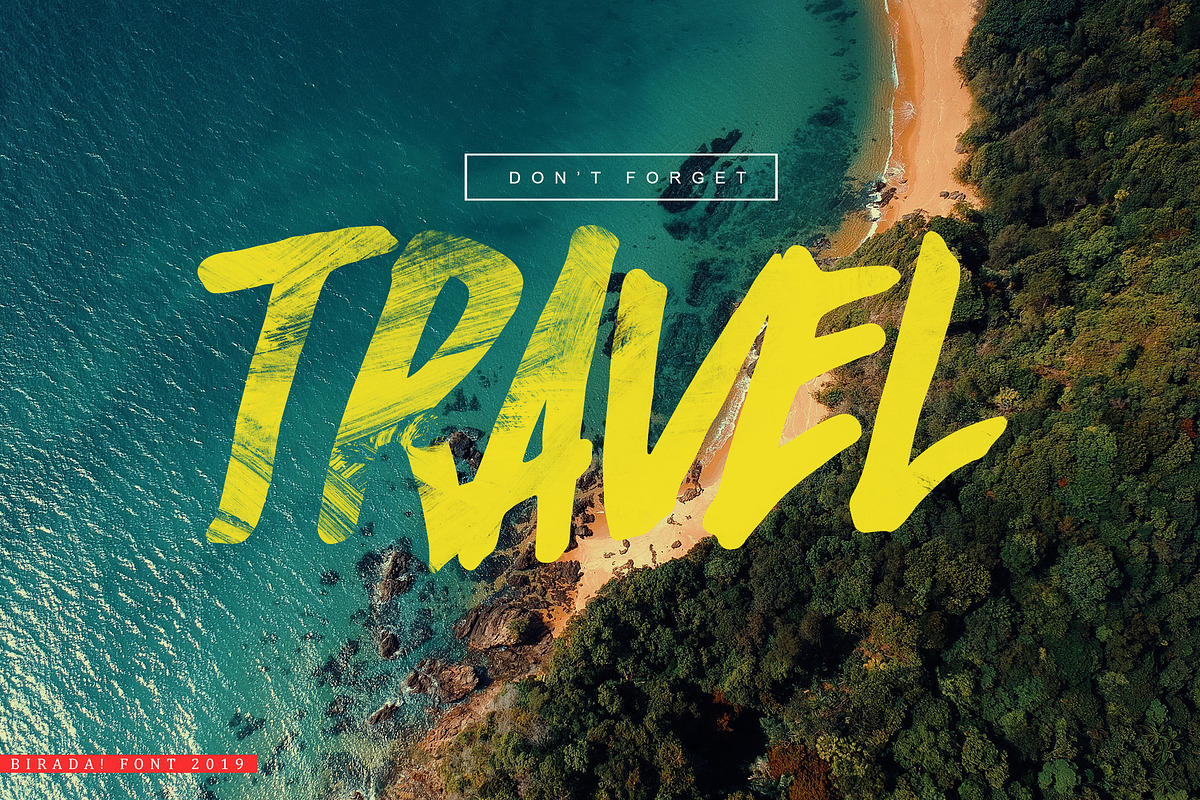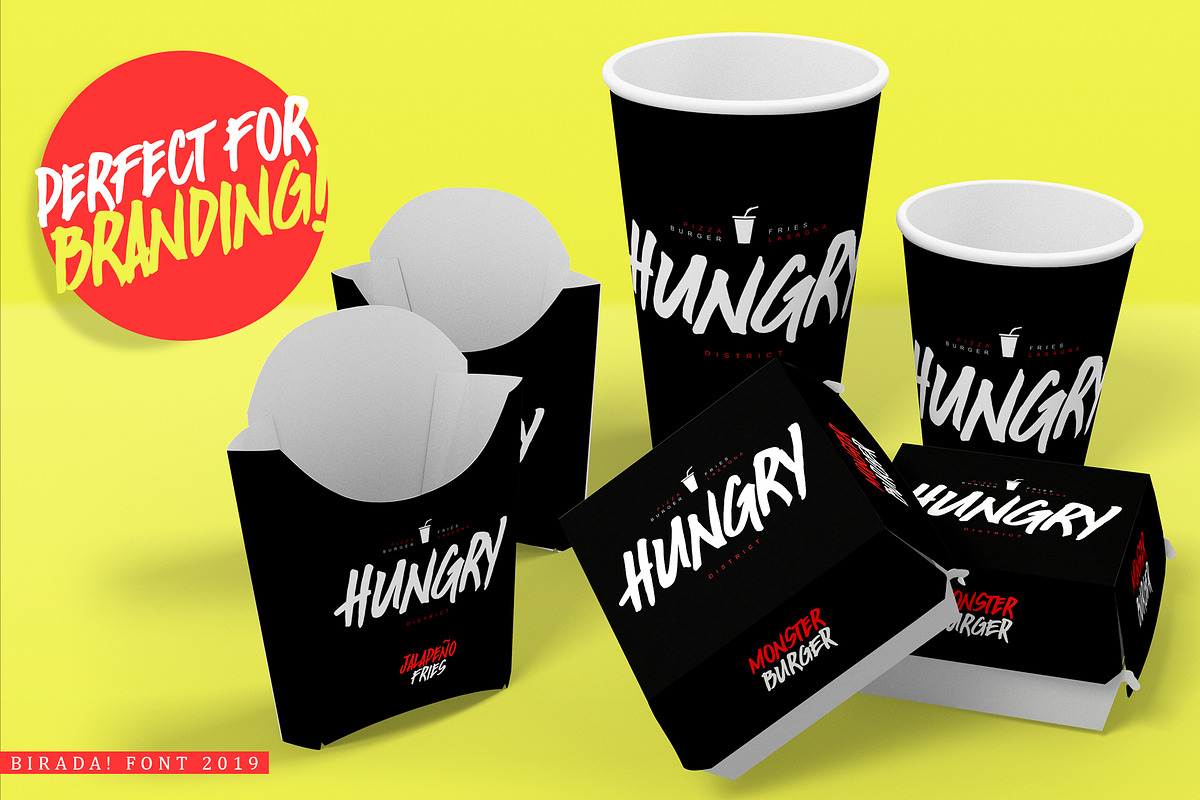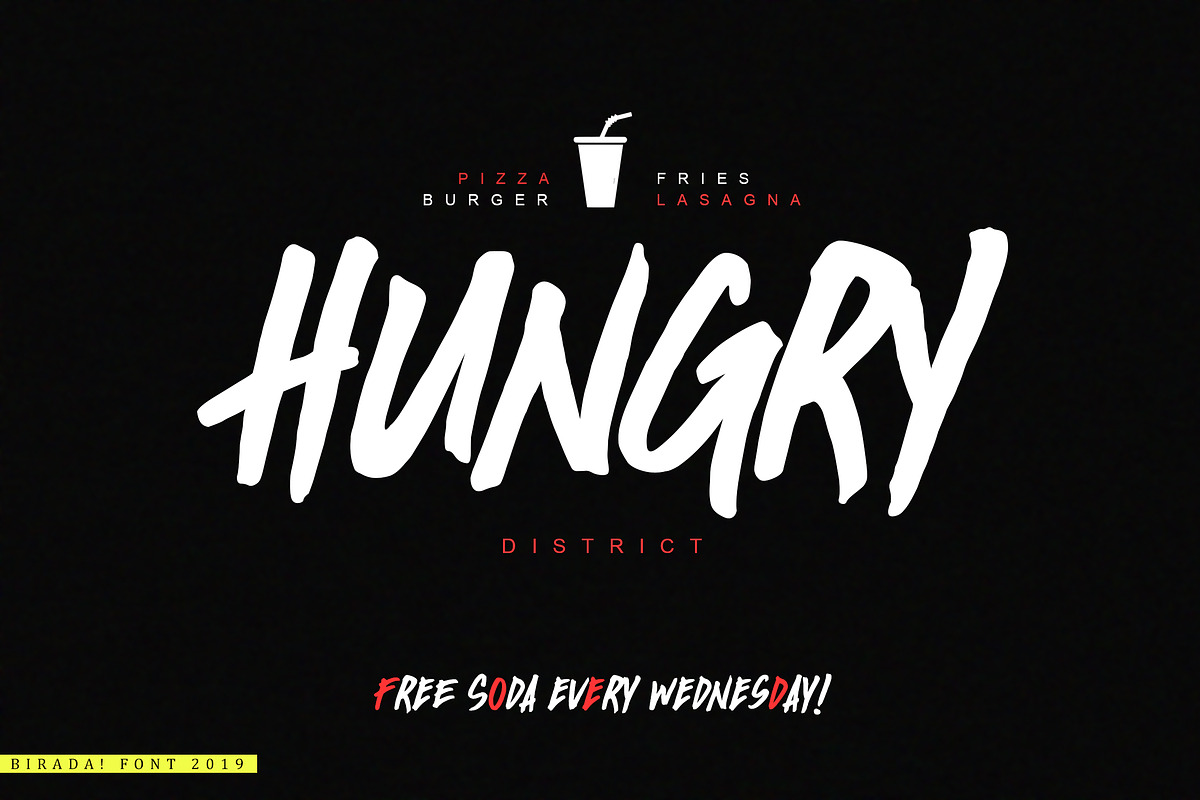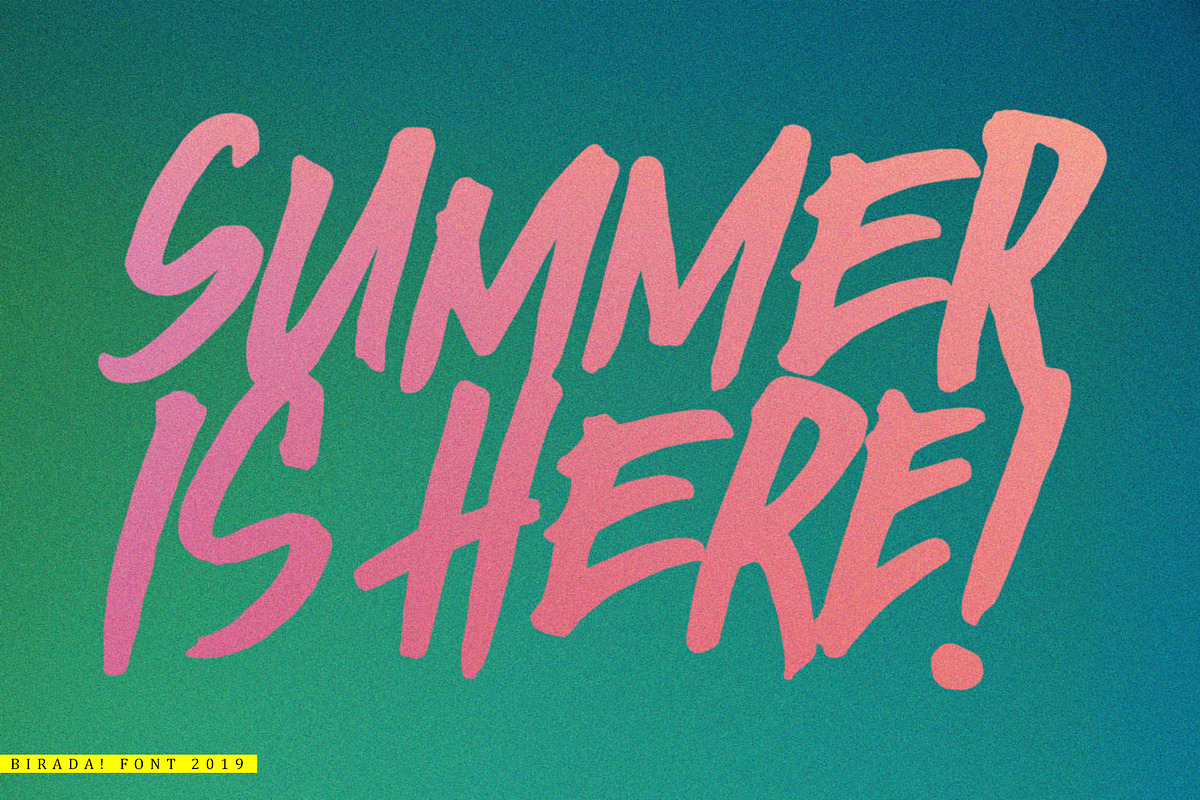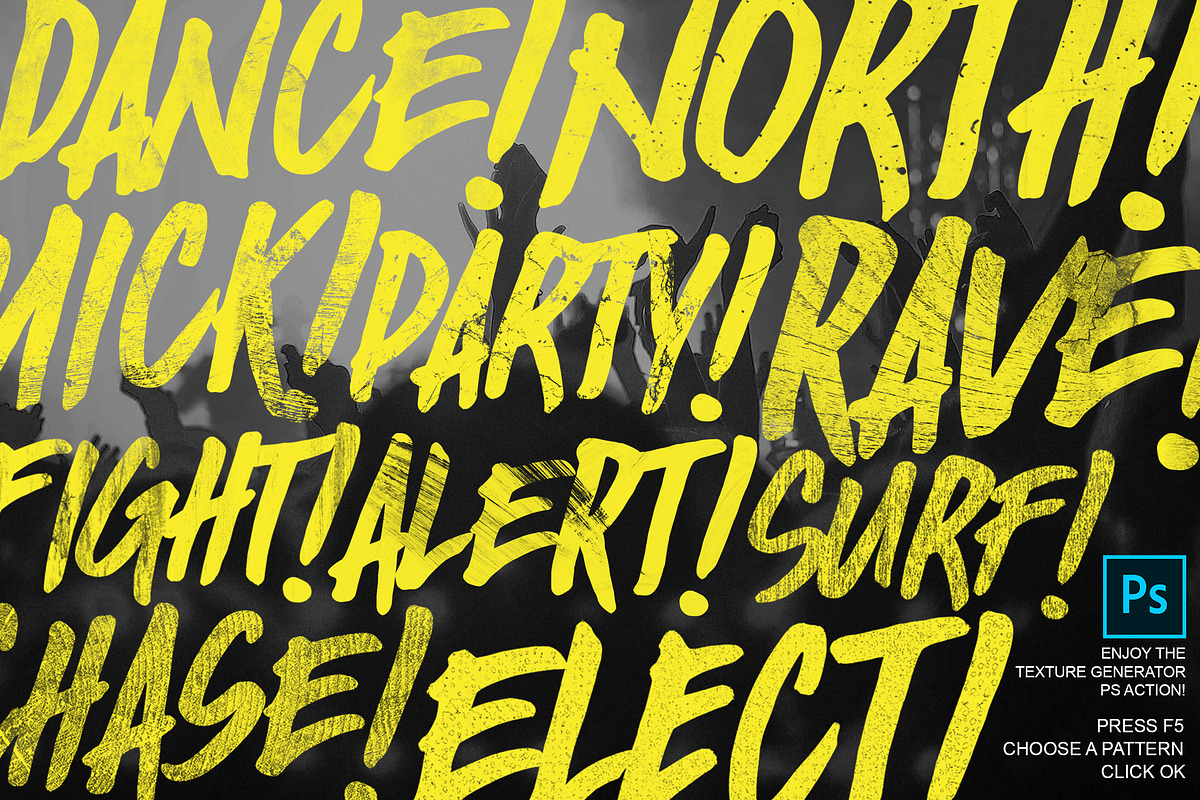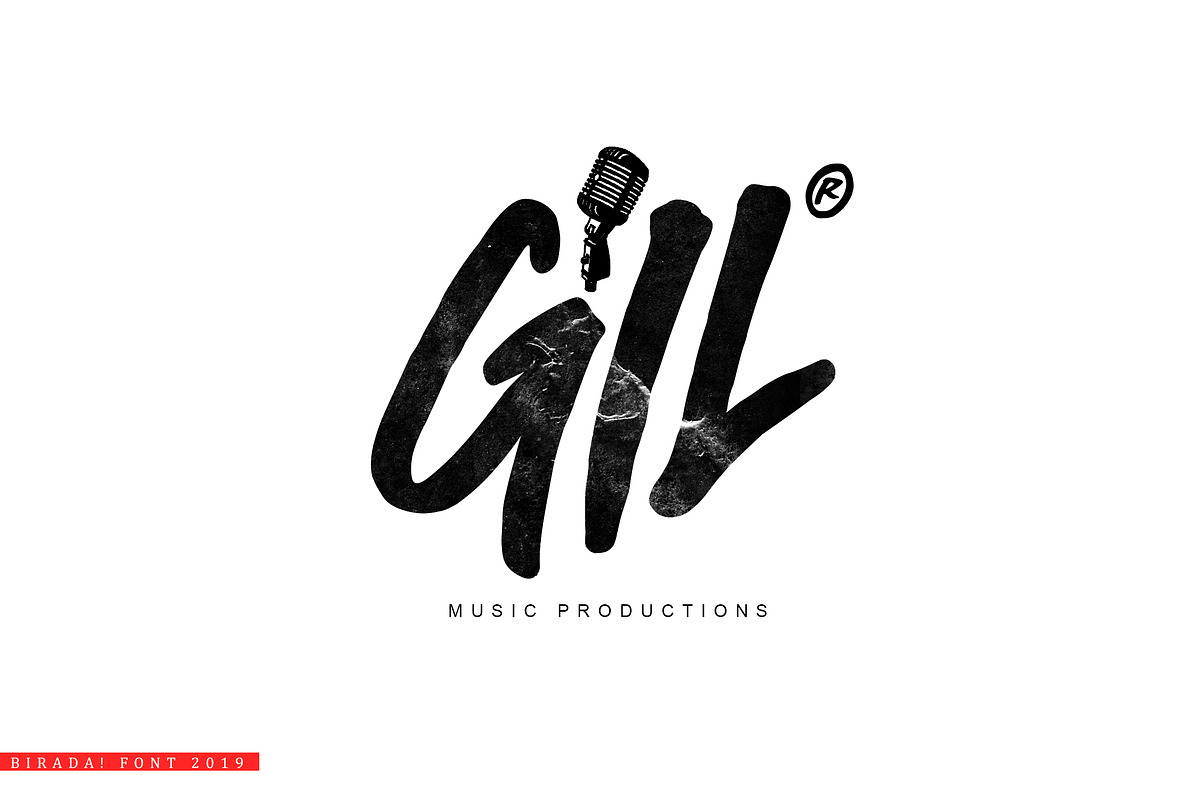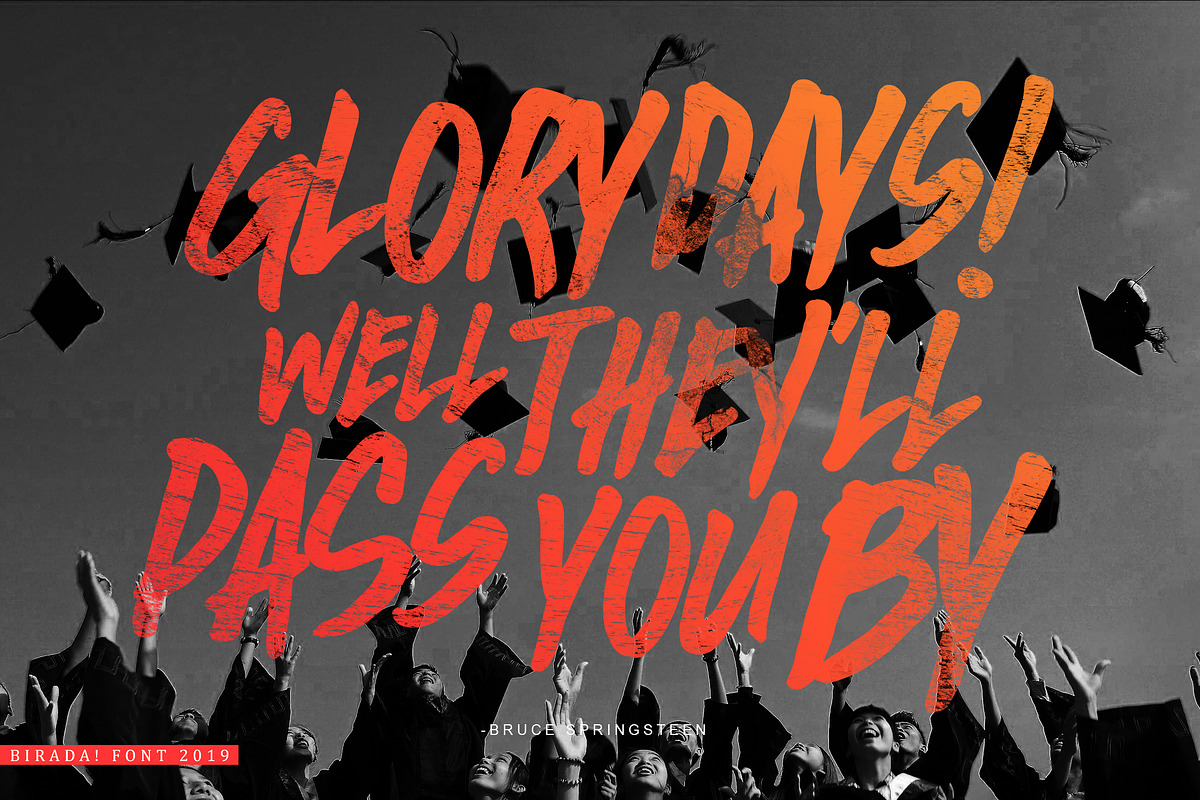
Birada! Font + PS Action
The new Birada! font is here!
Let's all take a break from the sweetness of the script fonts and enjoy this game changer! The Birada! font is bold and strong and it even changes its personality when paired with the right texture. Yes, this new font comes with a Texture Generator Photoshop Action!
The font itself is perfect for extreme projects. It is also a great font for logos. While the texture makes it more epic and yet friendly to the eyes! Just load the Photoshop Action and you're good to go!
The Birada! font is readable and can be the best complement for your brand, logo, commercial, banner, photographs, vintage-themed projects, sports or extreme sports, and many more!